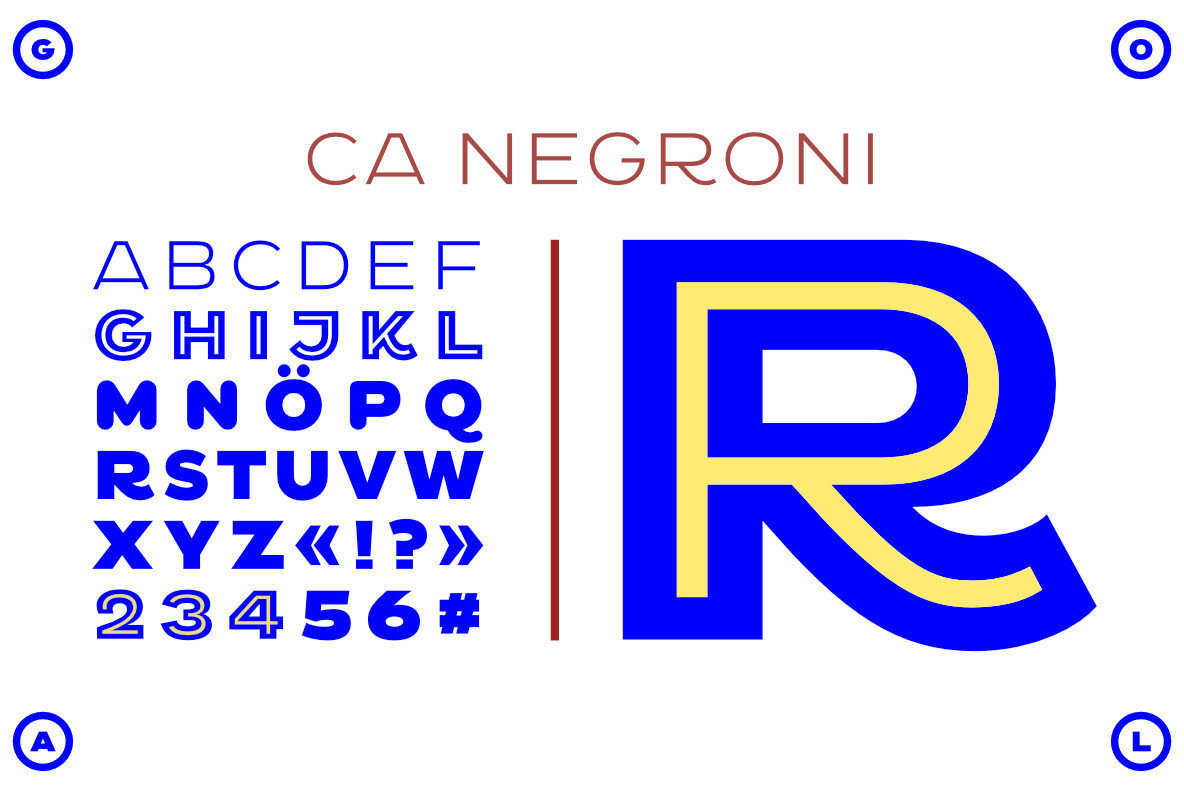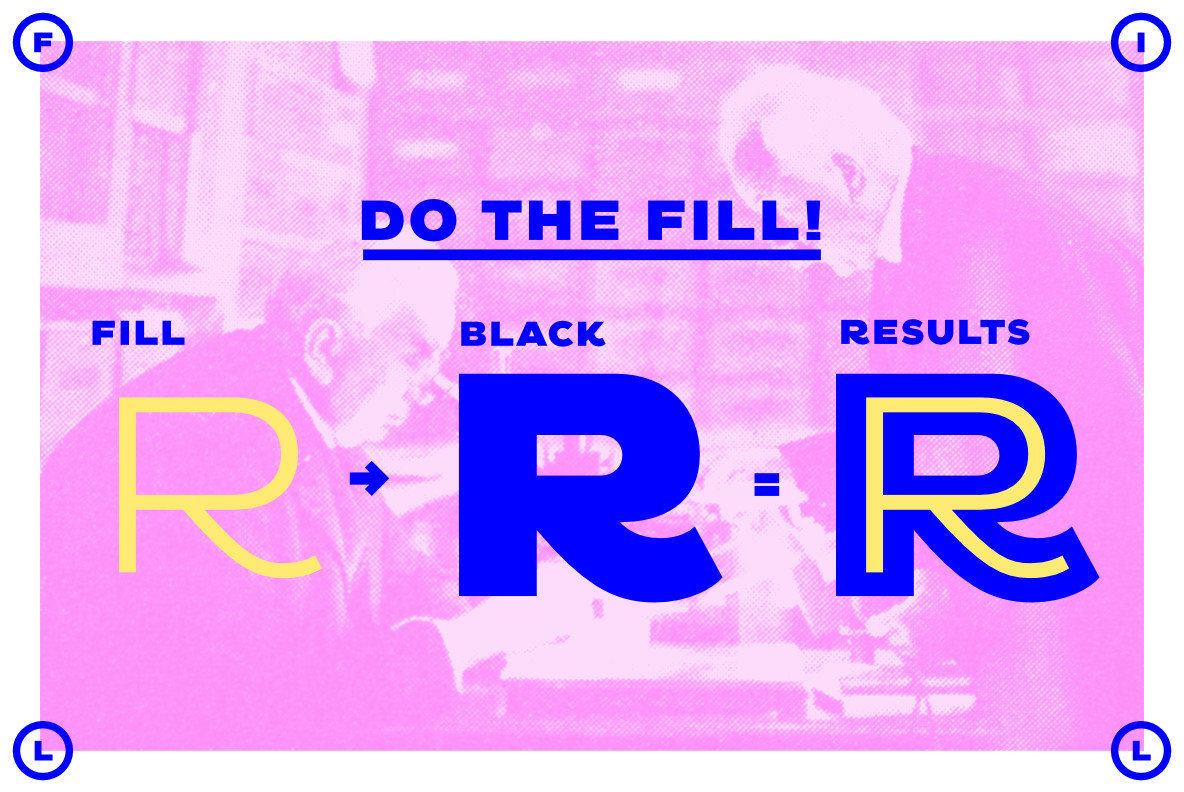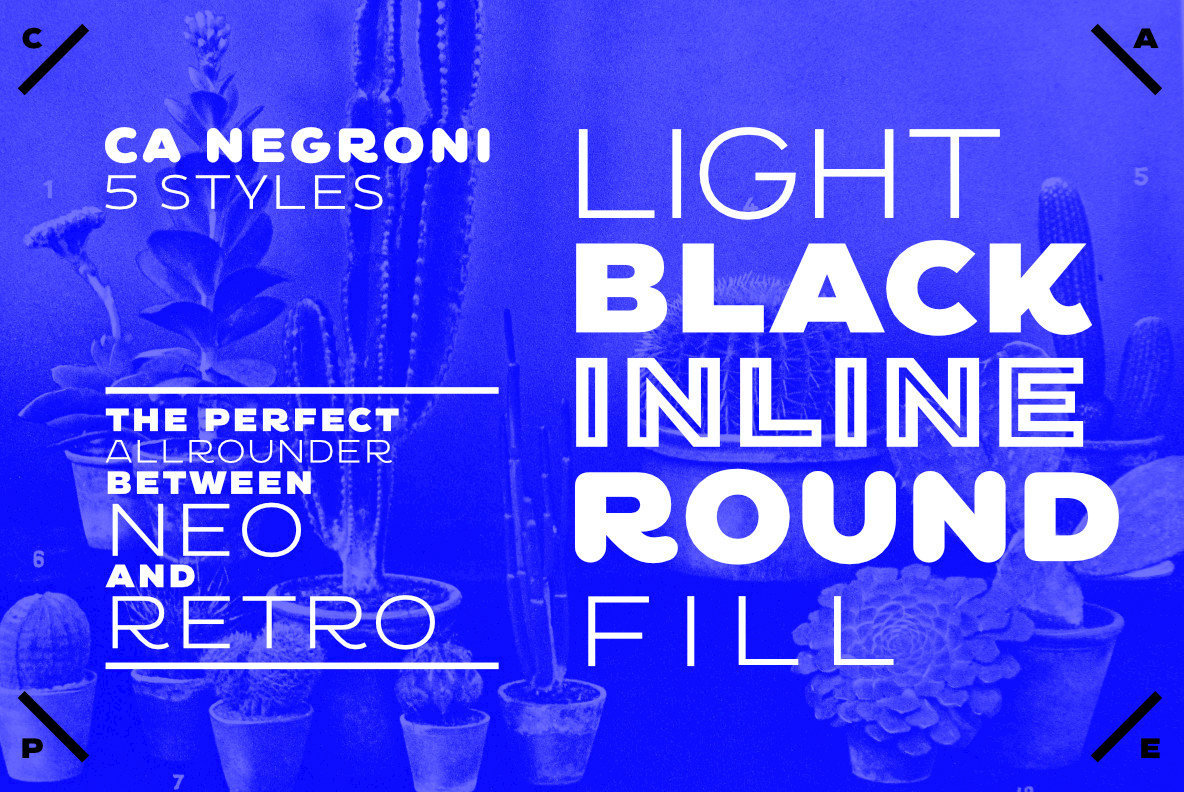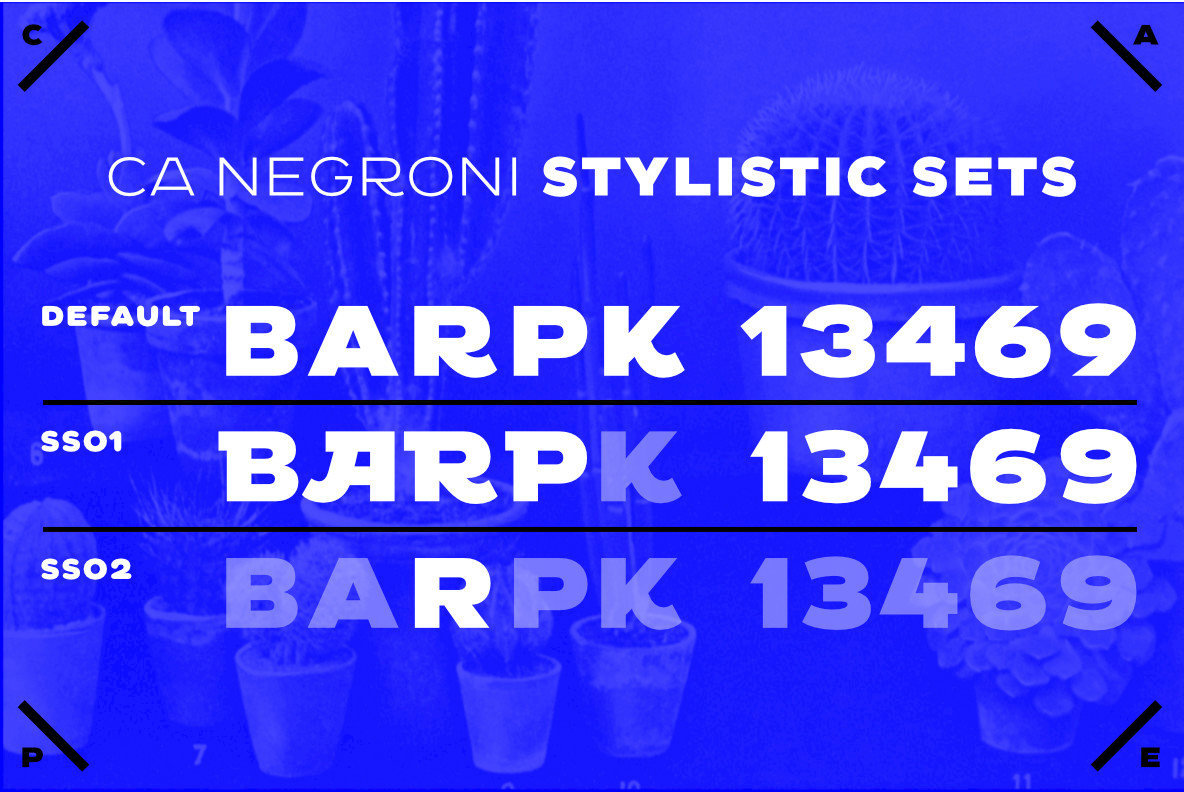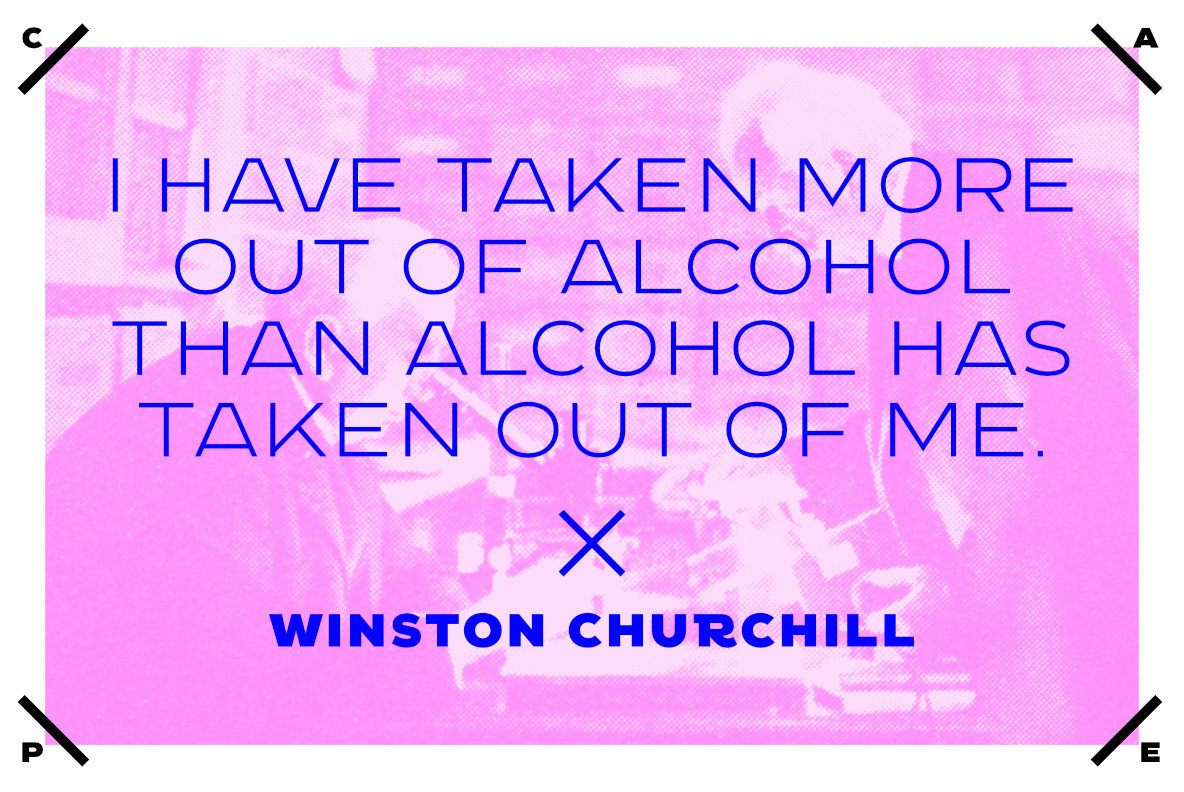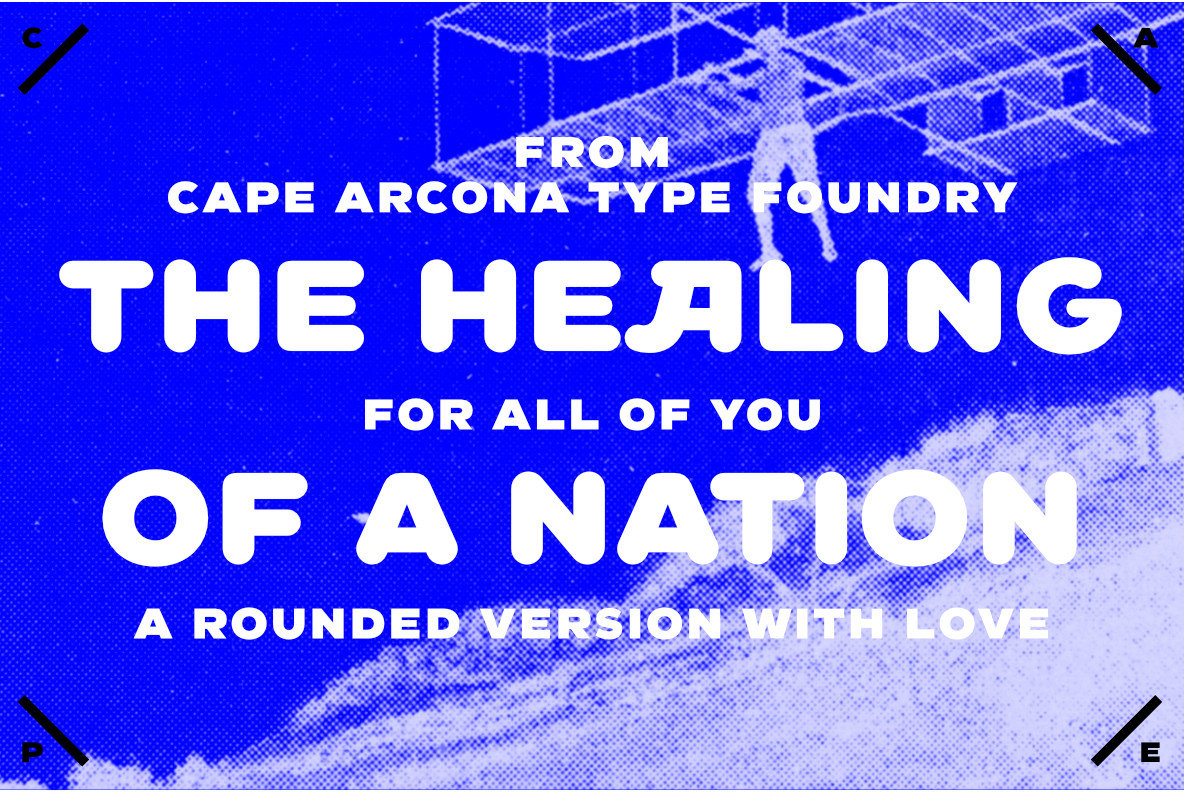
CA Negroni Font
A dinner is not complete without a fine appetizer. Whatever you dinner will be, CA Negroni is the perfect introduction. Delivered in three flavors, Normal (with Light + Black + Fill), Inline and Round. Versatility is proved by the extensive language support, covering whole Central Europe.
CA Negroni is the well aged and improved version of a typographic classic: in the beginning of the 20th century, type in advertising was mostly drawn by hand. A master of this art and pioneer in logo-design was Wilhelm Deffke (1187–1950).
CA Negroni is inspired by his kind of bold and solid letterings, picking up some of the charming details while leaving away other that might have a disturbing effect on the general look. Two stylistic sets let you choose between a more serious or a more playful look.